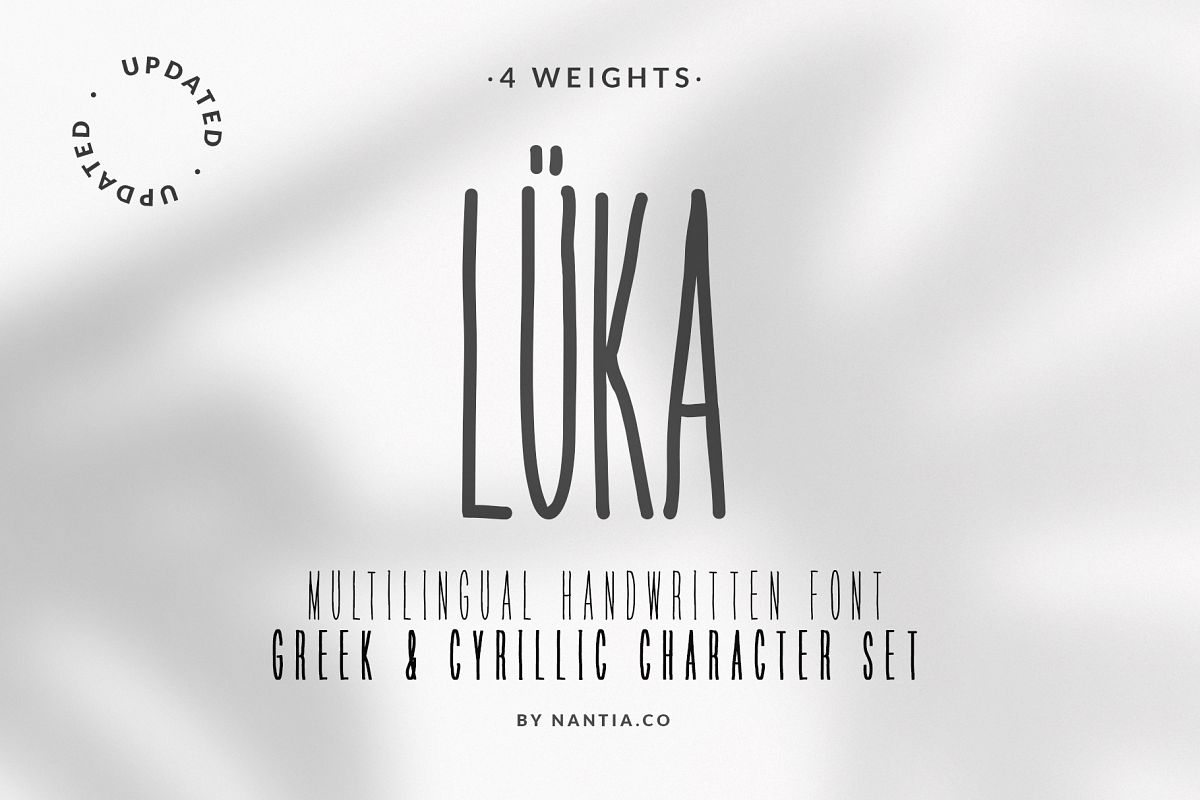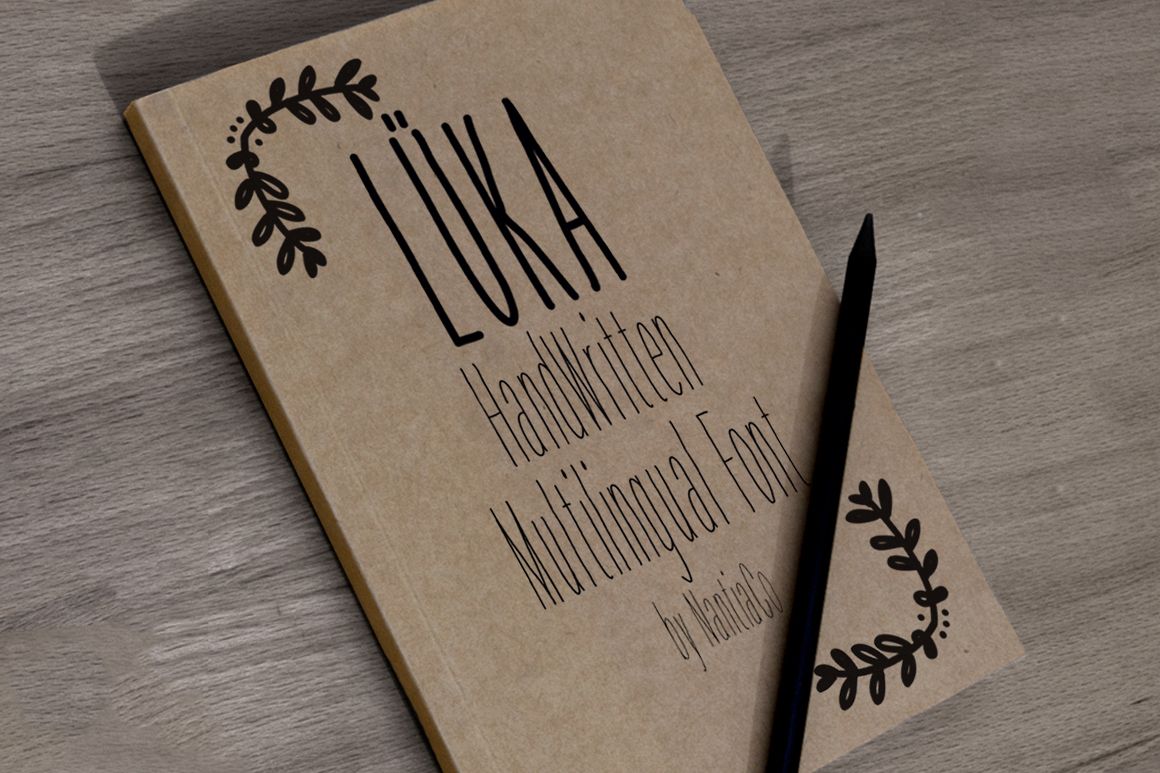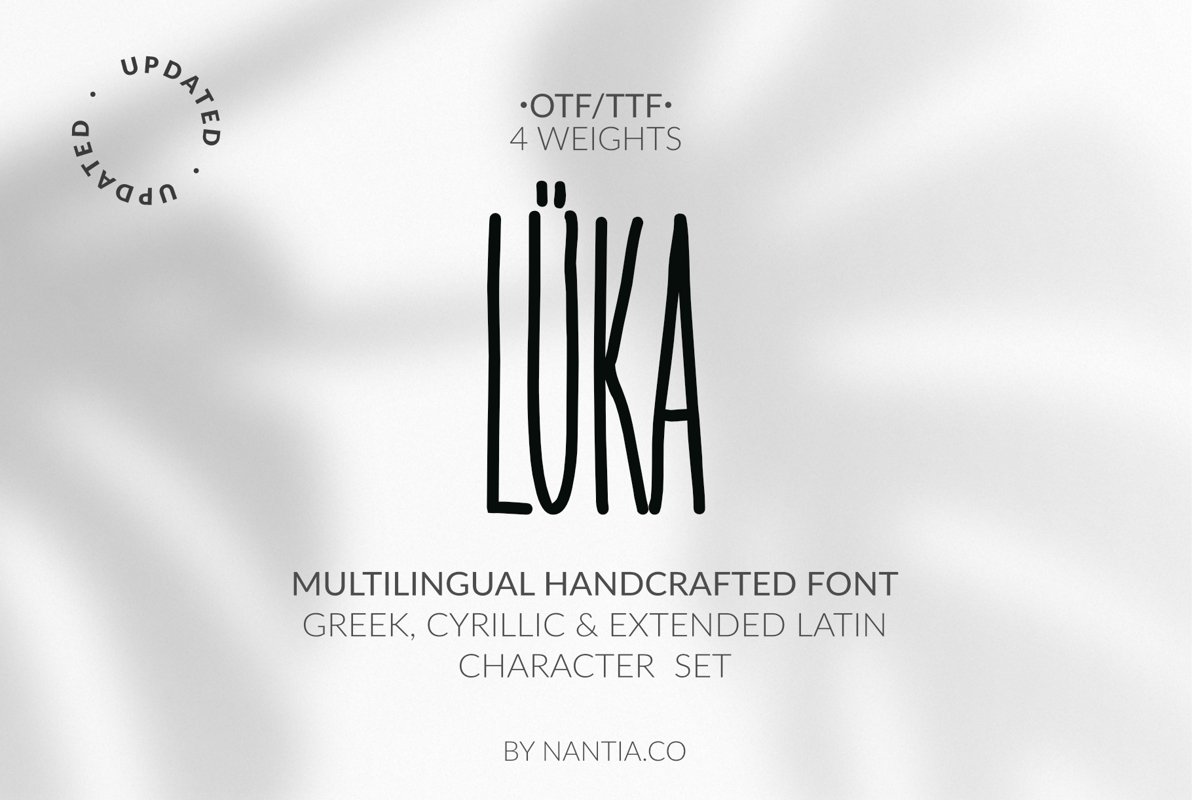
LÜKA | HandWritten Multilingual Font
Luka Font is a handwritten multilingual display font, with greek, cyrillic and latin characters. Luka Font is a handdrawn, decorative, san serif font in 4 weights: thin, normal and heavy
With 577 glyphs in Latin, Greek, Cyrillic, punctuation marks, diacritics and numbers.
Supports the following languages:Albanian, Basque, Bosnian, Breton, Catalan, Chamorro, Chichewa_nyanja, Croatian, Cyrillic, Czech, Danish, Dutch, English, Estonian, Faroese, Finnish, French, Frisian, Galician, German, Greek, Hungarian, Icelandic, Italian, Latvian, Lithuanian, Malagasy, Maltese, Norwegian, Polish, Portuguese, Romanian, Serbian, Slovak, Slovenian, Spanish, Swedish, Turkish, Welsh